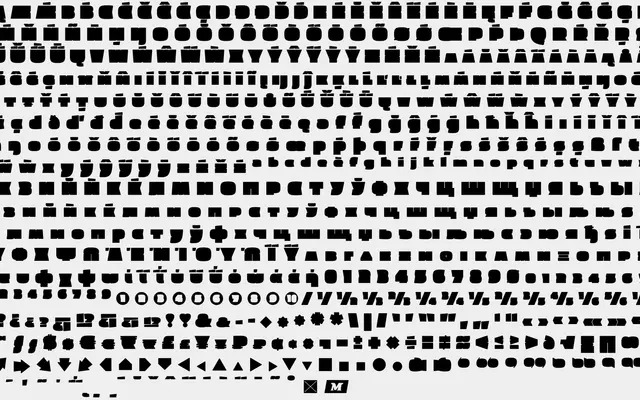
Pufff
A single-weight ultra-heavy display typeface by Rob Keller, originating as a custom commission for Mota Italic Gallery's first exhibition.
Originally designed for the Mota Italic Gallery exhibition 'Capital: Berliner Buchstaben', this one-weight typeface pushes maximum weight to an extreme, described by its designer as going beyond bold, heavy or extra black. Despite its singular style, it packs a substantial OpenType feature set including small caps, fractions, ligatures, case-sensitive forms and stylistic sets, plus 1,073 glyphs covering Latin, Cyrillic and Greek with small caps across all scripts. Typographica named it among the best fonts of 2014.
A single-weight, maximally heavy display typeface with no italic or condensed variants, designed for maximum visual impact at large sizes. Its extreme weight and rounded, bloated forms place it firmly in the display category.